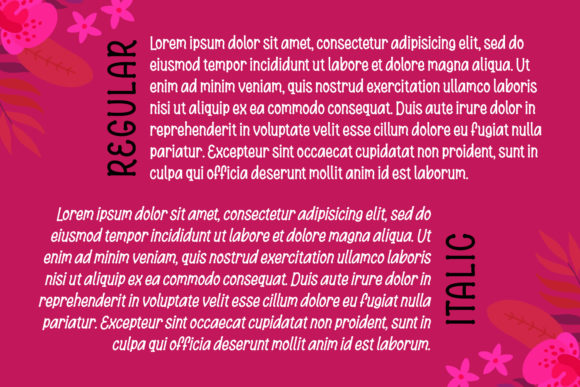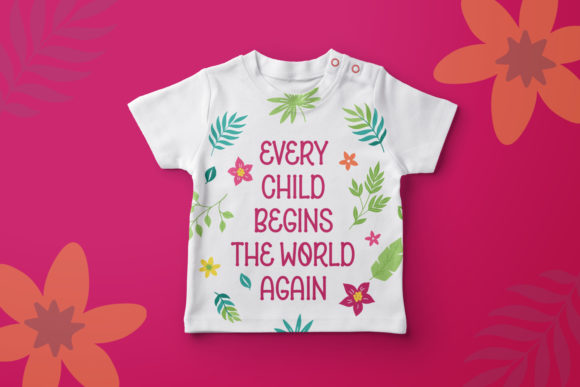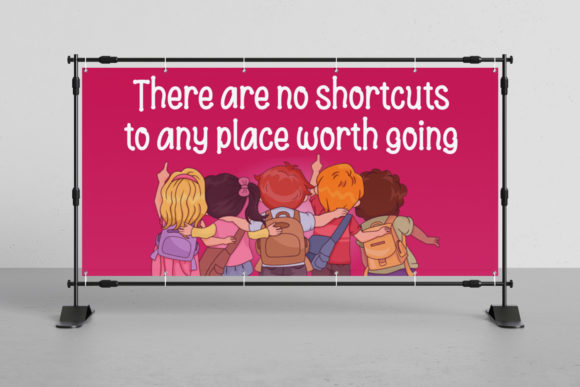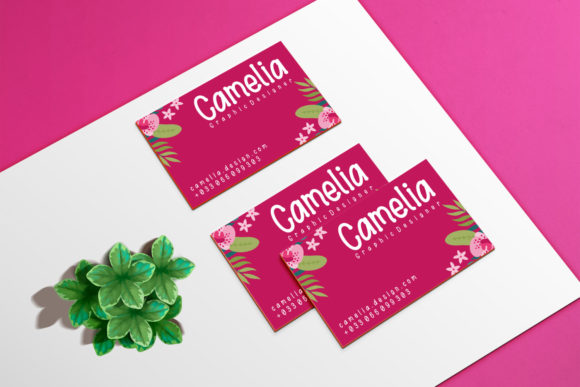
Meet Your New Favorite Handwritten Friend: Bronice Font
Have you ever been brainstorming ideas for a creative project, and suddenly a spark of inspiration hits you? You know, that moment when everything falls into place, and you can’t wait to start bringing your vision to life? For designers, this moment is what makes all the hard work worth it.
When you need a font that captures the essence of playfulness and friendliness, Bronice Font is the perfect companion. This neat rounded handwritten font is designed to work seamlessly with various projects, from social media graphics to branding materials. What makes Bronice Font truly valuable for designers is its versatility and ease of use.
Whether you’re looking to add a personal touch to your designs or create a consistent brand identity, Bronice Font is a valuable addition to your toolkit. Its playful nature makes it an excellent choice for designers who want to convey a sense of approachability and creativity.
Bronice Font Key Features
- Unique Characteristics: This font features a unique blend of modern and vintage elements, making it suitable for a wide range of design projects, from contemporary to classic styles.
- Language Support: Bronice Font includes support for multiple languages, including Latin, Cyrillic, and Greek scripts, making it an excellent choice for international design projects.
- Kerning and Ligatures: The font includes advanced kerning and ligature pairs, ensuring that text sets appear professional and well-spaced, even at small font sizes.
Design Review: Bronice Font
Overall, I’d say the Bronice Font has some great qualities, but also some limitations that might make it less suitable for certain projects.
- ✨ Elegant and refined aesthetic: Bronice Font has a beautiful, sophisticated look that’s perfect for high-end branding, luxury goods, or fashion magazines.
- ✨ Versatile: The font comes in a range of weights and styles, making it easy to use in different contexts, from headlines to body text.
- ✨ Nice x-height: The font’s x-height is well-balanced, which makes it easy to read, even in smaller sizes.
- ⚠️ Limited language support: Bronice Font seems to be primarily designed for Latin-based languages, which might be a problem for projects requiring support for languages like Chinese, Japanese, or Arabic.
- ⚠️ Not suitable for body text: While the font is great for headlines, it can be a bit too ornate and distracting for large blocks of body text.
- ⚠️ May require manual adjustments: Depending on the project, you might need to adjust the font’s spacing, kerning, or leading to get it to work perfectly.
Overall, I’d recommend Bronice Font for projects that require a touch of elegance and sophistication, but be aware of its limitations and potential need for manual adjustments.
Getting the Most Out of Bronice Font
To get the most out of Bronice Font, use it in combination with other design elements, such as bold text or contrasting colors, to create visual interest. Experiment with different font sizes and styles to create a unique and eye-catching design.
Bronice Font is ideal for creative and artistic projects, such as posters, flyers, and social media graphics. It’s also suitable for use in branding materials, such as logos and business cards, where a unique and stylish font is desired.